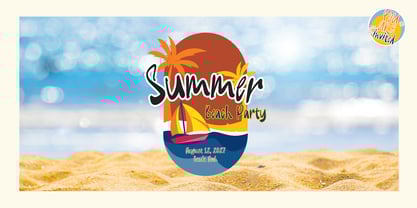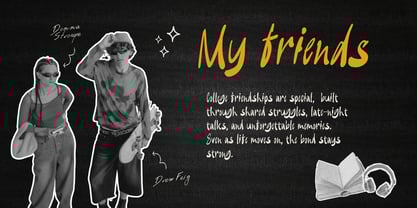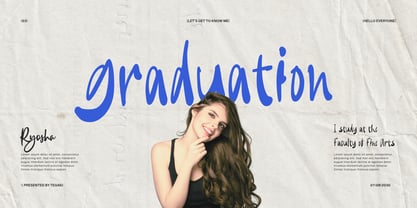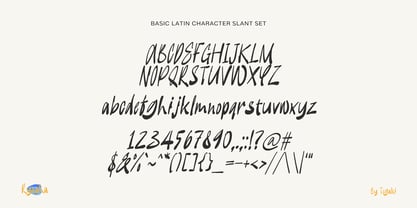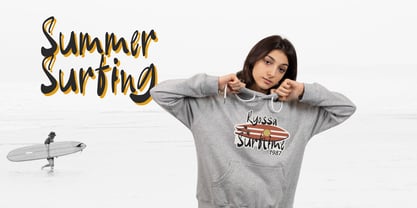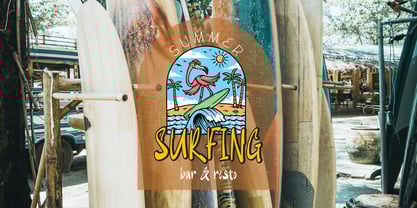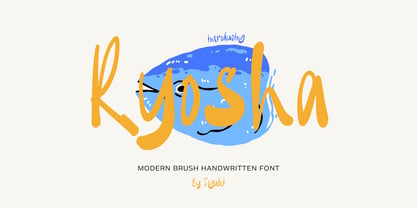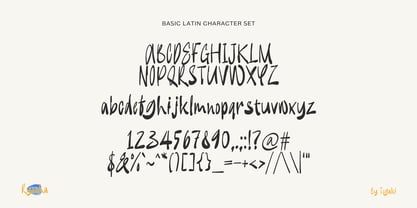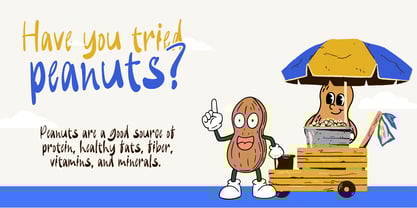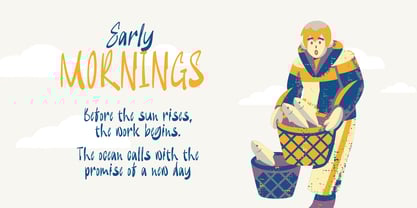
Ryosha Slant
by Tegaki
The Ryosha Slant Font Family was designed by Rudi Suhairi and published by Tegaki. Ryosha Slant contains 2 styles and family package options.
Ryosha – Modern Handwritten Brush Font
Ryosha is a modern handwritten brush font that blends bold energy with smooth, natural curves. Each letter flows with dynamic strokes, giving your design a personal and stylish touch.
Designed for creatives, Ryosha is ideal for logos, branding, quotes, posters, packaging, and social media. Comes with ligatures included, your text will look authentic and full of character.
Let Ryosha bring powerful expression to your work, it’s more than just a font, it’s a statement.